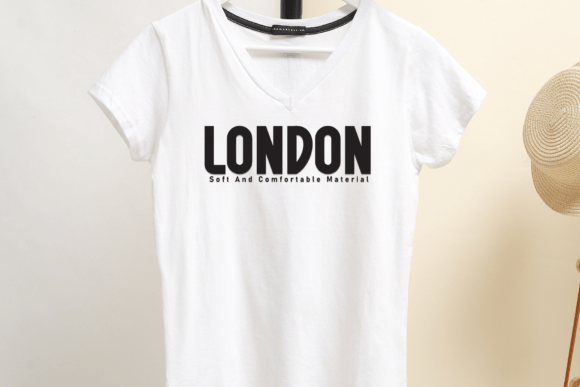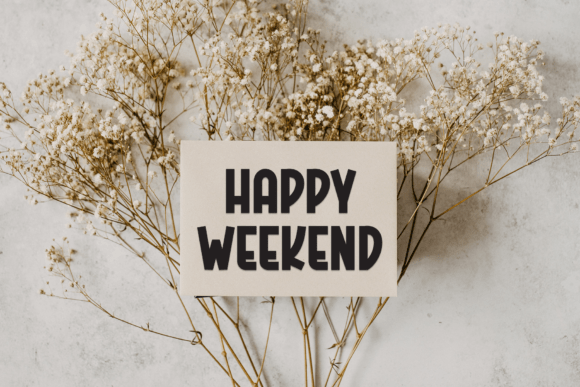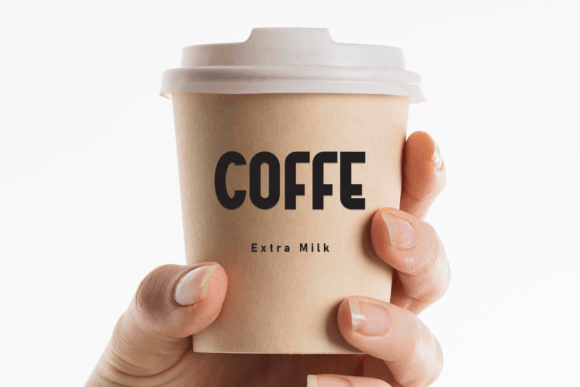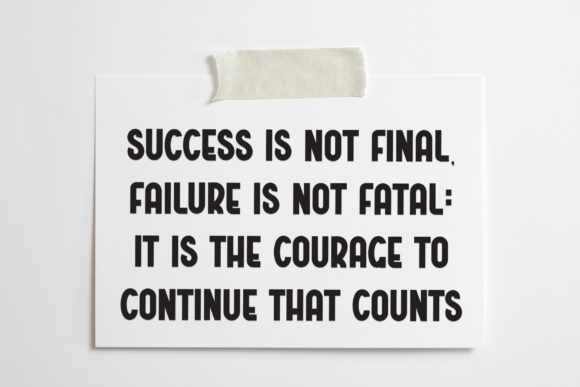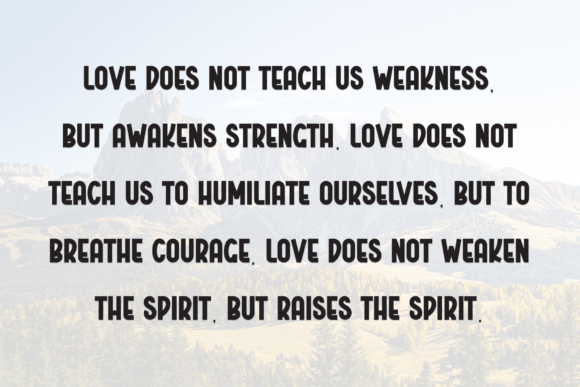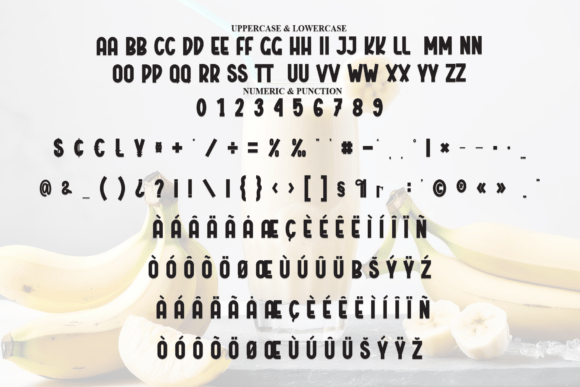
Introducing Banana Smothies Font: The Perfect Blend of Clarity and Relaxed Style
In the world of typography, finding the right font can make all the difference in the success of a design project. Whether you’re a graphic designer, a crafty DIY enthusiast, or a branding expert, the font you choose can elevate your work from ordinary to extraordinary. This is where Banana Smothies Font comes in – a neat and casual display font that strikes the perfect balance between clarity and a relaxed, approachable vibe.
Clean Lines, Friendly Letterforms
Banana Smothies Font boasts clean lines and friendly letterforms that make it an ideal choice for a wide range of design applications. Its modern yet laid-back feel is perfect for headlines, posters, packaging, and branding projects that aim to connect with audiences on a more personal level. The font’s balanced structure ensures that your message is conveyed clearly, while its playful energy adds a touch of personality to your design.
Perfect for Modern and Laid-Back Designs
One of the standout features of Banana Smothies Font is its versatility. It can seamlessly transition from modern and sleek designs to more laid-back and casual projects. Whether you’re working on a branding campaign for a trendy coffee shop or a fun and vibrant poster for a music festival, this font has got you covered. Its unique blend of style and readability makes it an excellent choice for designers and crafters who want to create visually appealing and engaging designs.
Key Features of Banana Smothies Font
• Clean and clear lines: Ensures that your message is conveyed clearly and effectively.
• Balanced structure: Provides a sense of stability and harmony to your design.
• Playful energy: Adds a touch of personality and whimsy to your project.
• Modern yet laid-back feel: Perfect for designs that aim to feel contemporary and relaxed.
• Highly versatile: Suitable for a wide range of design applications, from headlines and posters to packaging and branding.
Why Choose Banana Smothies Font?
With so many fonts available, it can be overwhelming to choose the right one for your project. Here are a few reasons why Banana Smothies Font stands out from the crowd:
• Readability: The font’s clean lines and balanced structure ensure that your message is conveyed clearly and effectively.
• Style: Banana Smothies Font adds a touch of personality and whimsy to your design, making it more engaging and visually appealing.
• Versatility: The font’s versatility makes it suitable for a wide range of design applications and projects.
Design Inspiration with Banana Smothies Font
Banana Smothies Font can be used in a variety of design projects, from branding and packaging to posters and headlines. Here are a few design inspiration ideas to get you started:
• Branding and packaging: Use Banana Smothies Font to create a modern and laid-back brand identity that resonates with your target audience.
• Posters and flyers: Add a touch of personality and whimsy to your posters and flyers with this fun and vibrant font.
• Headlines and titles: Use Banana Smothies Font to create eye-catching headlines and titles that grab attention and convey your message effectively.
In conclusion, Banana Smothies Font is a unique and versatile display font that blends clarity with a relaxed, approachable vibe. Its clean lines, friendly letterforms, and balanced structure make it perfect for a wide range of design applications, from headlines and posters to packaging and branding. With its playful energy and modern yet laid-back feel, Banana Smothies Font is an excellent choice for designers and crafters who want to create visually appealing and engaging designs.